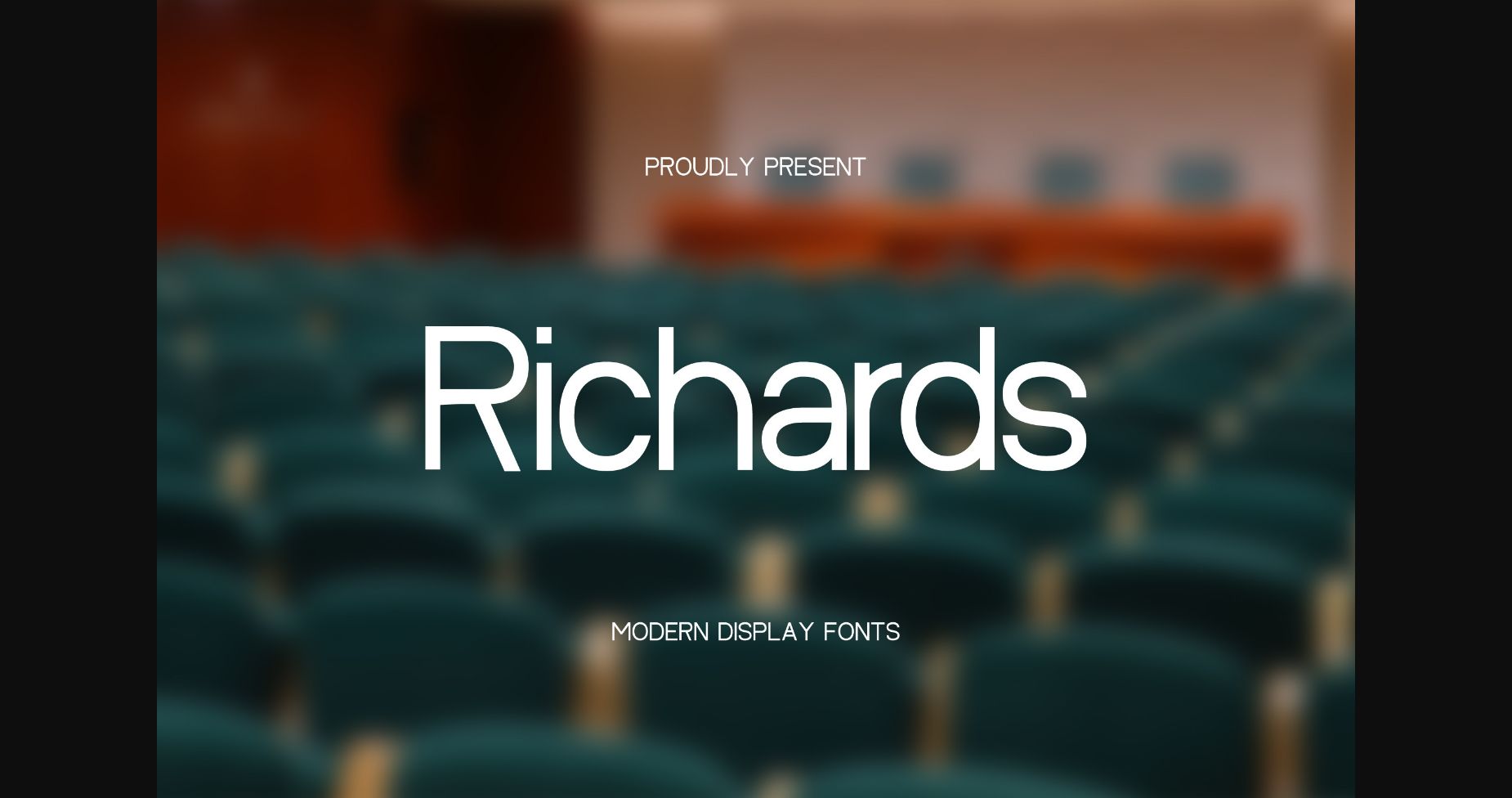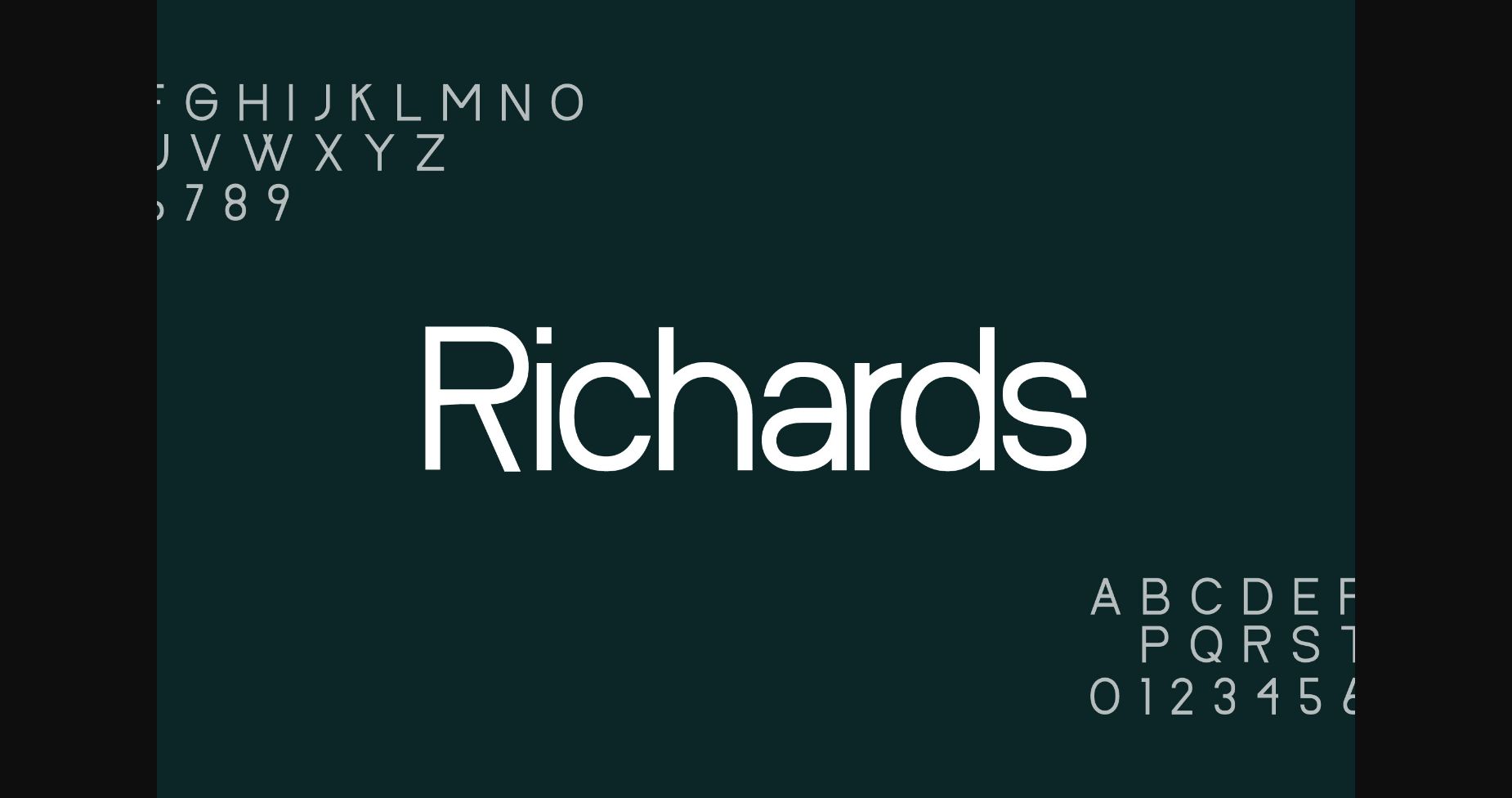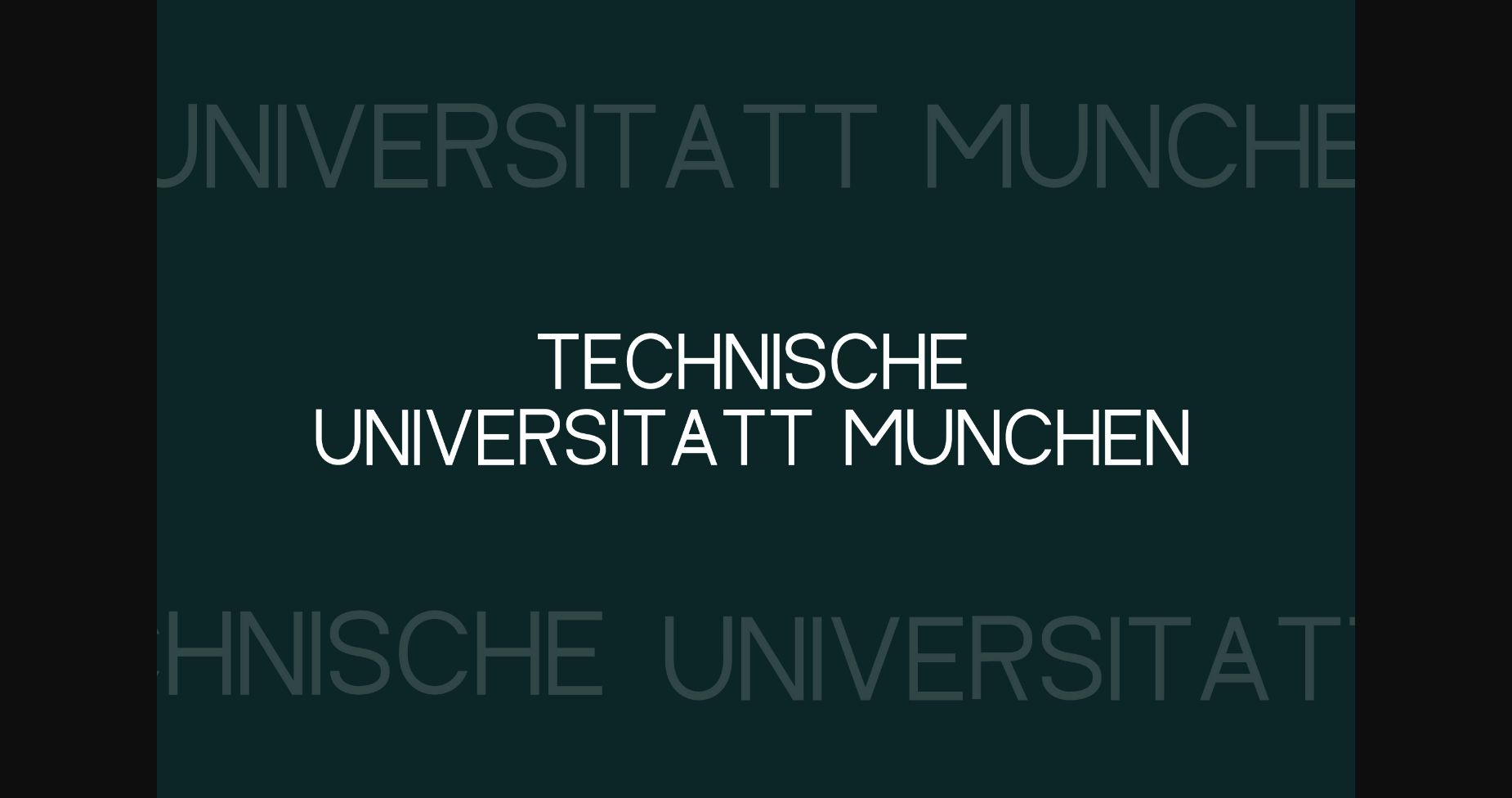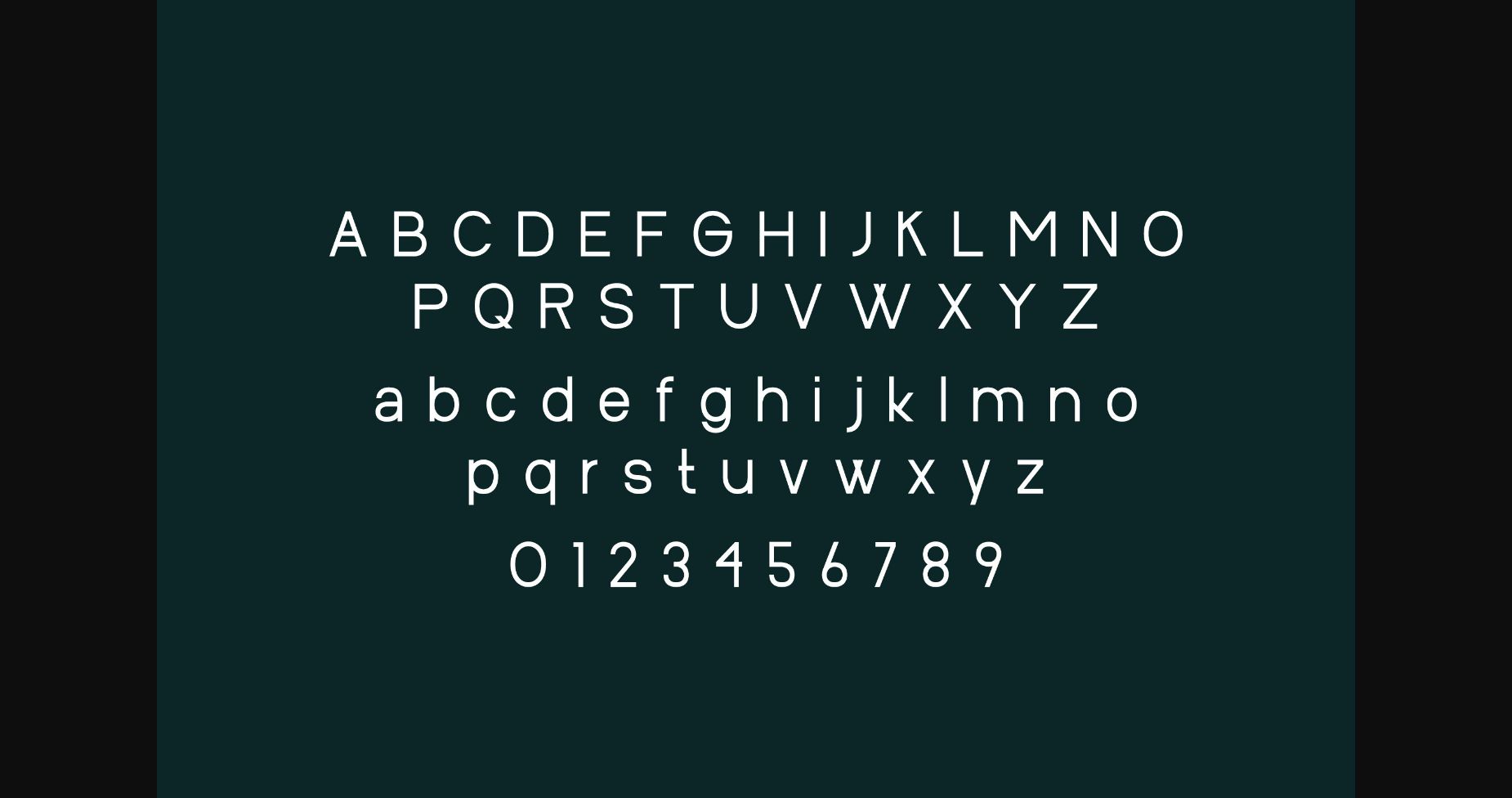
HomeSans Serif FontsRichards Font Sans Serif Fonts Richards Font FacebookXPinterestWhatsApp 1 of 6 ... Richards Font Poster 2... Richards Font Poster 3... Richards Font Poster 4... Richards Font Poster 5... Richards Font Poster 6... About Richards Font Richards is a clean and simple sans serif font. It has a neat, thin and smooth vibe and it will be a hit for any design that you want to add it to. DOWNLOAD NOW People also explored Saturday Ataro Font Black Birdy Font Beckenford Celebrate Font Greentler Font The Home Font Unico Font Budapest Girl Font 338 0 TagsRichards Font Previous articleVolto FontNext articleMisegar Font LEAVE A REPLY Cancel reply Comment: Please enter your comment! Name:* Please enter your name here Email:* You have entered an incorrect email address! Please enter your email address here Website: Save my name, email, and website in this browser for the next time I comment. Personal Use Free GoodFay Personal Use Free Read more about this font Masker Area Personal Use Free Read more about this font Hello Sister Personal Use Free Read more about this font Morning Miow Personal Use Free Read more about this font BLOG Fonts That Capture the Spirit of New York City New York City is more than just a place—it’s an experience, a rhythm, a visual language... Free vs Paid Fonts: Why Investing in Premium Fonts Is Worth It To increase your work productivity, choose the most readable fonts. The 10 Best Handwriting Fonts to Add Personality to Your Designs